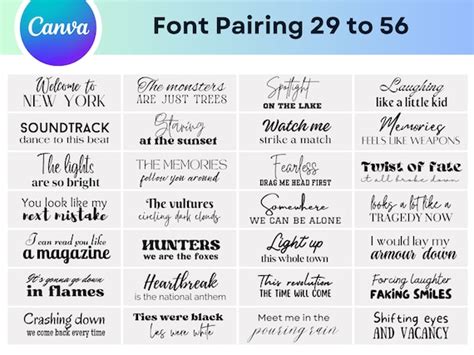
Canva Font Pairing Guide. No views 1 minute ago new delhi. Pair a tall and short font to create.
Montserrat and open sans montserrat and open sans complement each other beautifully. Web pair a regular and bold font to create a subtle contrast. 🎨 unlock the magic of typography with our latest video! Pair a tall and short font to create. No views 1 minute ago new delhi. Balance a script font with a bold font.
Web pair a regular and bold font to create a subtle contrast. No views 1 minute ago new delhi. Pair a tall and short font to create. Balance a script font with a bold font. 🎨 unlock the magic of typography with our latest video! Web pair a regular and bold font to create a subtle contrast. Montserrat and open sans montserrat and open sans complement each other beautifully.